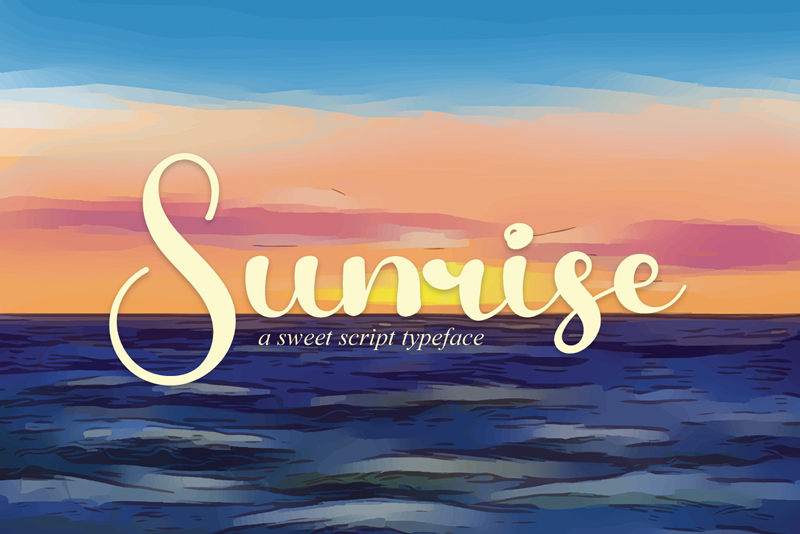
Sunrise is a flowing handwritten font, described by an elegant touch, perfect for your favorite projects. Fall in love with its incredibly distinct and timeless style and use it to create spectacular designs! Attention : Sunrise handwriting Font is prohibited to use this font for commercial purposes or for profit without the permission of the author/admin, without being known to use this font without permission, will be subject to sanctions 5x the specified price. This font is used only for demos (Demo license) If you want to use this font for commercial use please contact email: elllulukstudio123@gmail.com or click the link below: https://www.creativefabrica.com/product/sunrise-13/ref/761303/ If you want to see more other fonts, please click: https://www.creativefabrica.com/designer/el_hotcig/ref/761303/ Any donations are very appreciated. Paypal account for donation: https://www.paypal.com/paypalme/luluk783 thanks. |